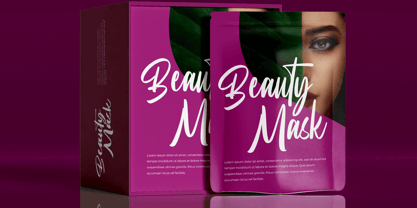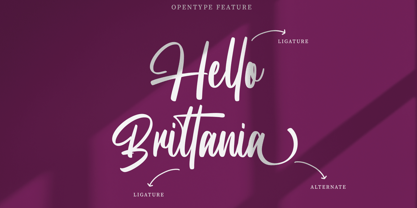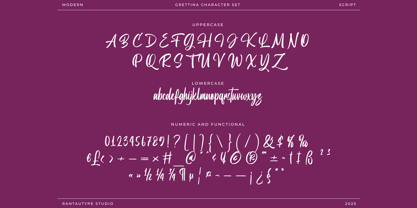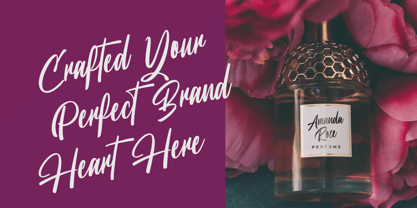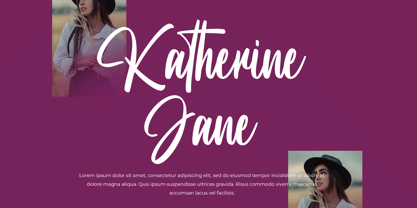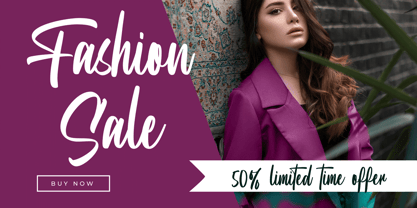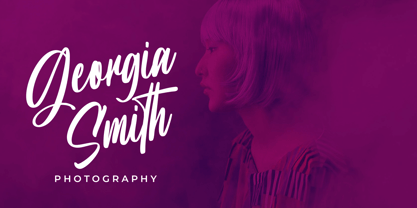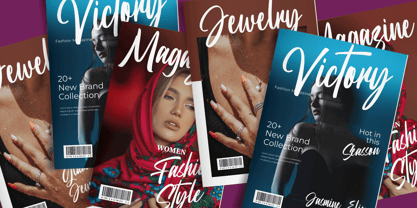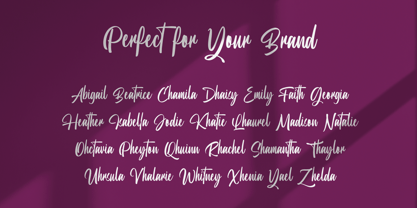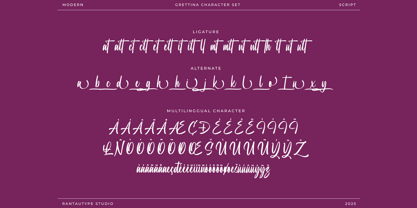
Grettina
von RantauType
Die Schriftfamilie Grettina wurde von Yudi Pratama Chandra entworfen und von RantauType veröffentlicht. Grettina enthält 1 Stile. Mehr über diese Familie
Grettina is modern handwritten font made by rantautype studio. Grettina is a perfectly choice for any creative endeavor, creating, modern, chic, lifestyle design such as logotype, title, cover, branding, invitations, wedding designs, display and magazine, social media posts, advertisements, printed quotes, product packaging, corporate brand, product designs, labels, photography, watermarks, special events and any other project with modern touch.
• Standart Glyphs
• Numberial and Functional
• Ligature and alternate
Designer: Yudi Pratama Chandra
Foundry: RantauType